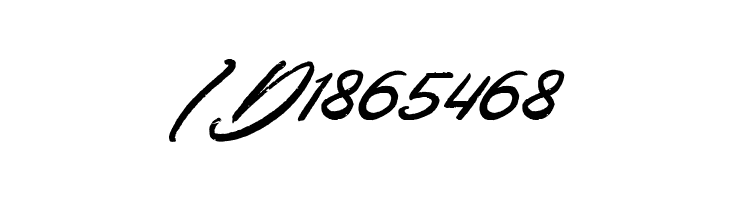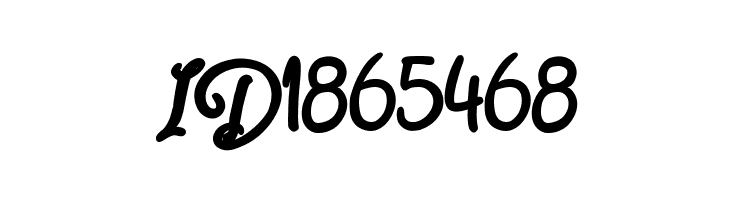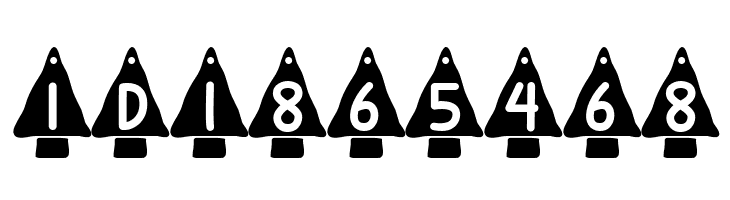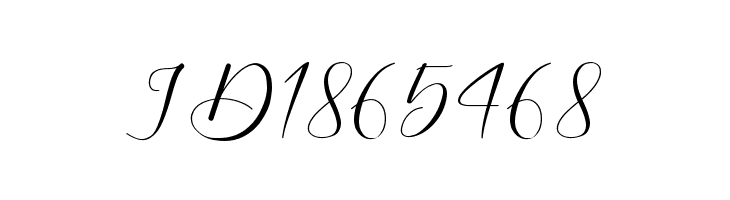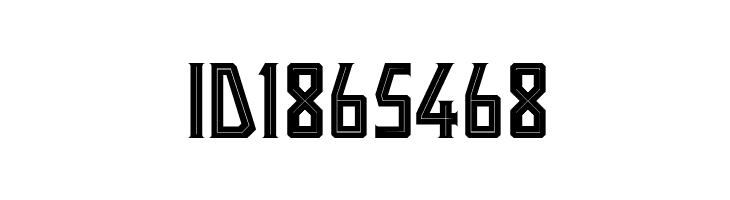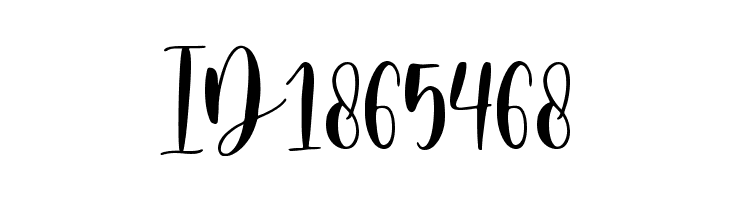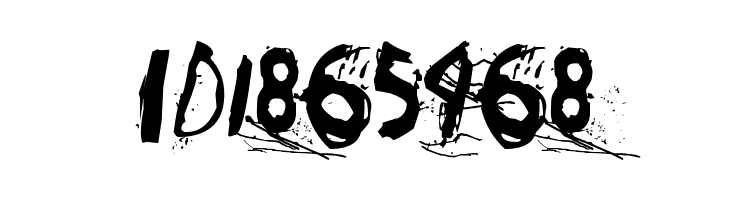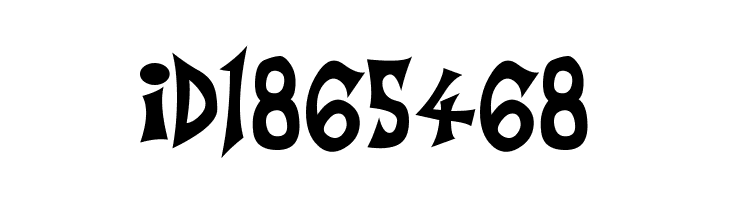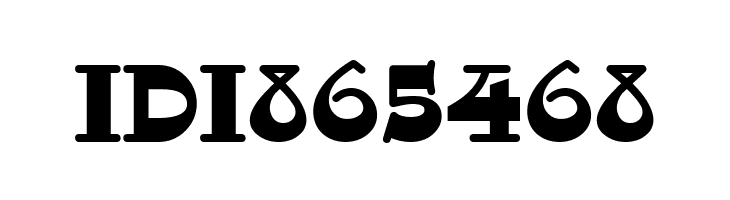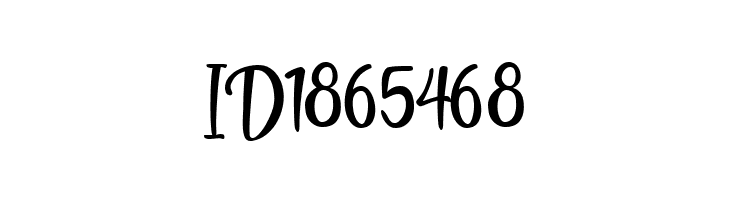
• Hollister Switch
A bold, cursive font with a playful and dynamic style.
• Holly Jolly Christmas
A festive, tree-shaped font perfect for holiday designs.
• Hollywood Festival
A dynamic and elegant script font with fluid, cursive strokes.
• Holyriver
A bold, geometric font with sharp angles and high contrast.
• Honest Darling
A playful and elegant cursive font with dynamic stroke variations.
• Honey Butter
A playful and whimsical script font with a hand-drawn aesthetic.
• Honeylove
An elegant script font with flowing, cursive letters and high contrast strokes.
• Hornswoggled
A bold, whimsical font with exaggerated serifs and a playful, vintage feel.
• Horrorshow
A bold, dramatic font with sharp, angular edges and a theatrical flair.
• Horros
A chaotic, distressed font with bold, jagged strokes and a grunge aesthetic.